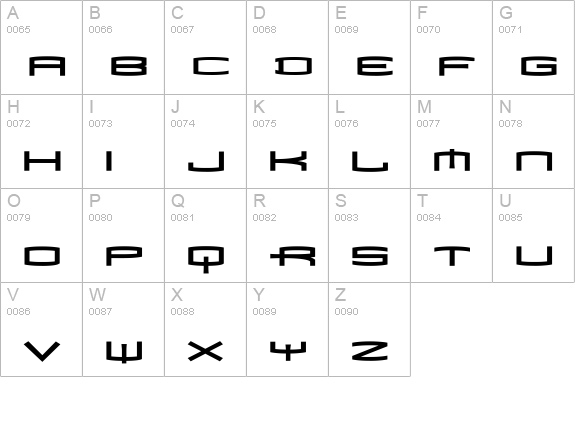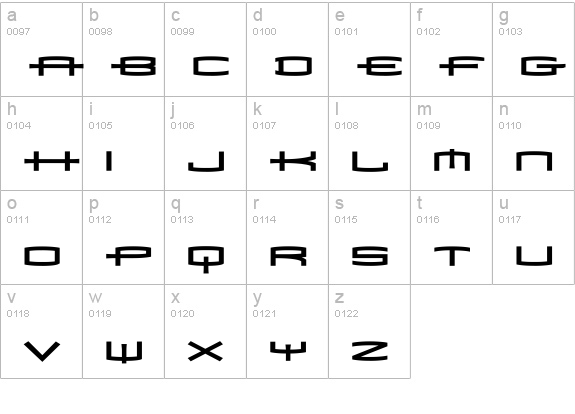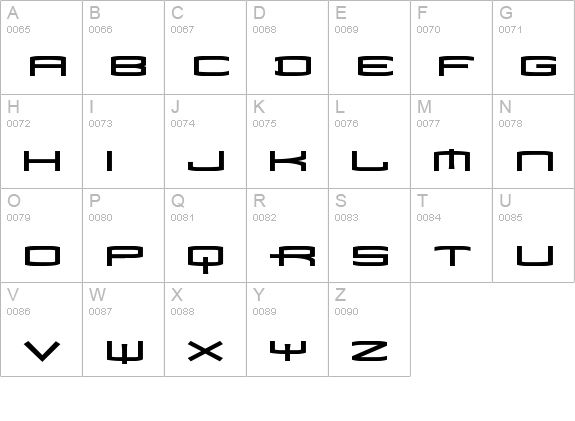
MataCondBd-Bold Font Details
MataCondBd-Bold is a strong, high-contrast variant in the MataCondBd typeface family \xE2\x80\x94 well suited to headlines, attention-grabbing titles, and strong calls-to-action.
MataCondBd-Bold is a striking and versatile font that exudes strength and confidence. Its bold letterforms are carefully designed to make a bold statement, making it perfect for headlines, logos, and any design that needs a touch of boldness. With its clean and modern aesthetic, MataCondBd-Bold is sure to capture attention and leave a lasting impression. The sturdy letterforms have just the right amount of curves and thickness, creating a harmonious balance that is visually appealing. What sets MataCondBd-Bold apart is not only its impressive design but also its accessibility. This exceptional font is available for free download at FontsMarket.com, ensuring that designers, creatives, and enthusiasts alike have easy access to this powerful typeface. Whether you're working on a branding project, a magazine layout, or a website design, MataCondBd-Bold is a reliable choice that will elevate your work to new heights. Its versatility allows it to effortlessly adapt to various design styles, making it a valuable addition to any font library. Don't miss out on the opportunity to enhance your designs with the boldness and elegance of MataCondBd-Bold. Download it for free today at FontsMarket.com and unlock the potential of this exceptional font. Let your creativity soar with this unique typeface that combines strength, versatility, and accessibility.